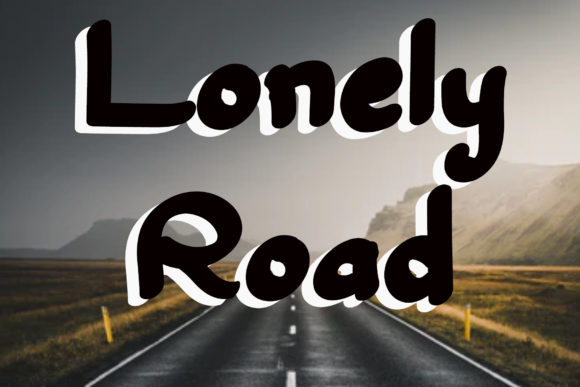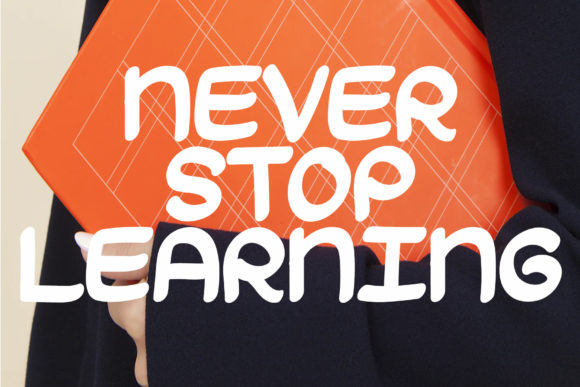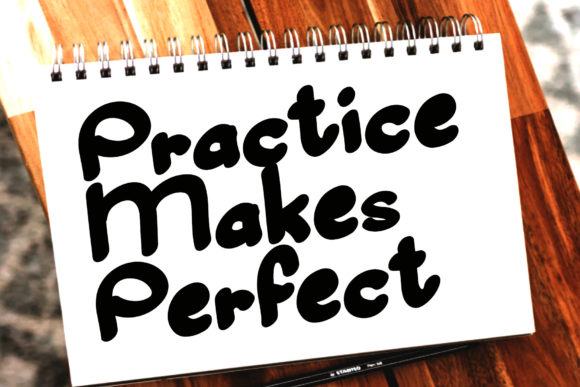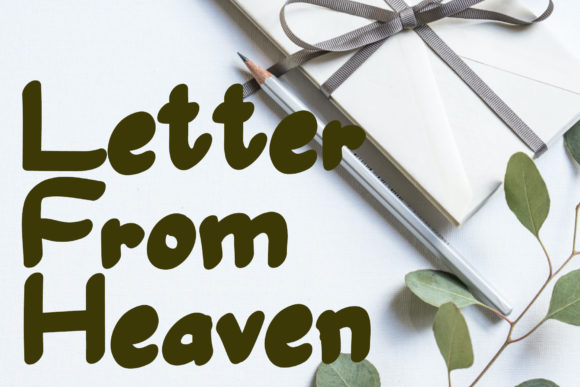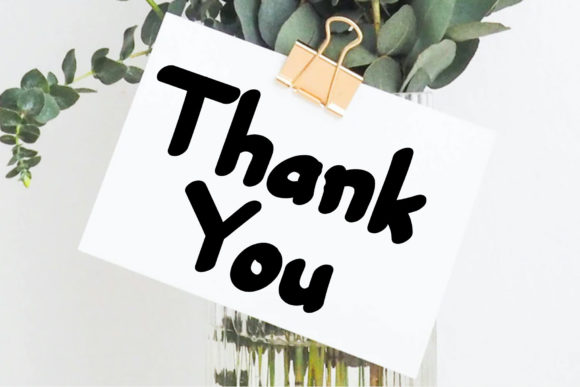
Discover the Charm of Beautiful Road Font: A Lovely Paint Brushed Handwritten Font
Are you a designer or crafter looking for a unique and eye-catching font to elevate your creative projects? Look no further than Beautiful Road Font, a stunning paint brushed handwritten font that is sure to capture your imagination. With its original and charming look, Beautiful Road Font is perfect for a wide range of crafty ideas, from letterheads and titles to stationery and more.
What Makes Beautiful Road Font So Special?
Beautiful Road Font is a one-of-a-kind font that boasts a distinctive paint brushed handwritten style. Its unique look is characterized by subtle imperfections and texture, giving it a warm and organic feel that is perfect for adding a personal touch to your designs. Whether you’re creating a rustic wedding invitation, a vintage-inspired logo, or a playful craft project, Beautiful Road Font is sure to add a touch of charm and whimsy.
Perfect for a Wide Range of Crafty Ideas
One of the best things about Beautiful Road Font is its versatility. Its lovely paint brushed handwritten style makes it perfect for a wide range of crafty ideas, including:
- Letterheads and titles: Add a touch of elegance and sophistication to your letterheads and titles with Beautiful Road Font.
- Stationery: Create beautiful and unique stationery sets, complete with personalized notes, cards, and journals.
- Wedding invitations: Make your wedding invitations truly special with Beautiful Road Font, perfect for rustic, vintage, or outdoor weddings.
- Logos and branding: Use Beautiful Road Font to create a unique and memorable logo or brand identity for your business or product.
- Craft projects: Add a personal touch to your craft projects, such as scrapbooking, card making, and DIY gifts.
Why Choose Beautiful Road Font?
So why choose Beautiful Road Font over other fonts? Here are just a few reasons:
- Unique and original: Beautiful Road Font is a one-of-a-kind font that will set your designs apart from the crowd.
- High-quality: Beautiful Road Font is a high-quality font that is designed to produce crisp and clear results, even at small sizes.
Tips for Using Beautiful Road Font
Here are a few tips for getting the most out of Beautiful Road Font:
- Experiment with different colors: Beautiful Road Font looks great in a range of colors, from bold and bright to soft and pastel.
- Mix and match: Combine Beautiful Road Font with other fonts and design elements to create a unique and eye-catching look.
- Pay attention to spacing: Make sure to adjust the spacing between letters and words to create a clean and easy-to-read design.
- Have fun: Most importantly, have fun and be creative with Beautiful Road Font!
Beautiful Road Font is a truly special font that is sure to capture your imagination and inspire your creativity. With its unique paint brushed handwritten style, versatility, and ease of use, it’s the perfect choice for designers and crafters looking to add a touch of charm and whimsy to their projects. So why wait? Download Beautiful Road Font today and start creating something truly beautiful!